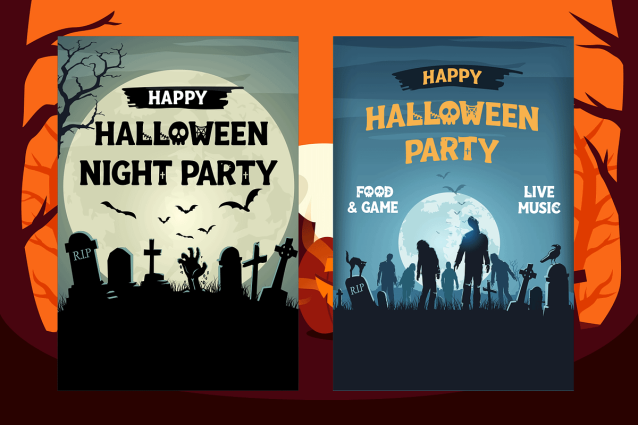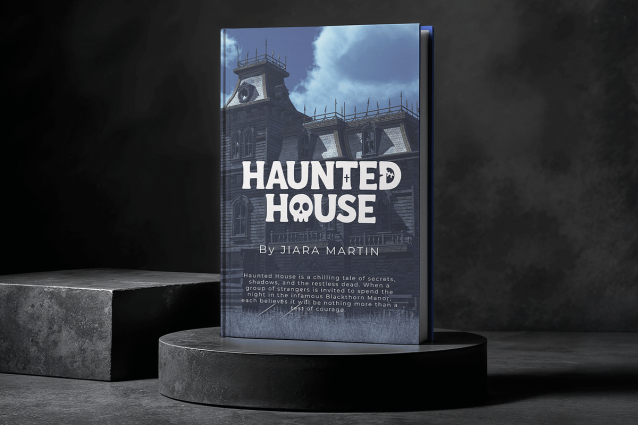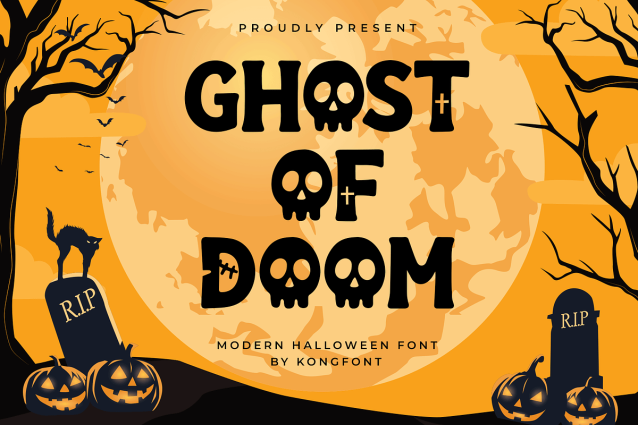
Ghost Of Doom Font
Ghost Of Doom Font is a modern Halloween font that combines eerie horror vibes with a stylish and contemporary look. Its bold strokes, spooky details, and haunting atmosphere make it the perfect choice for any Halloween-themed project.